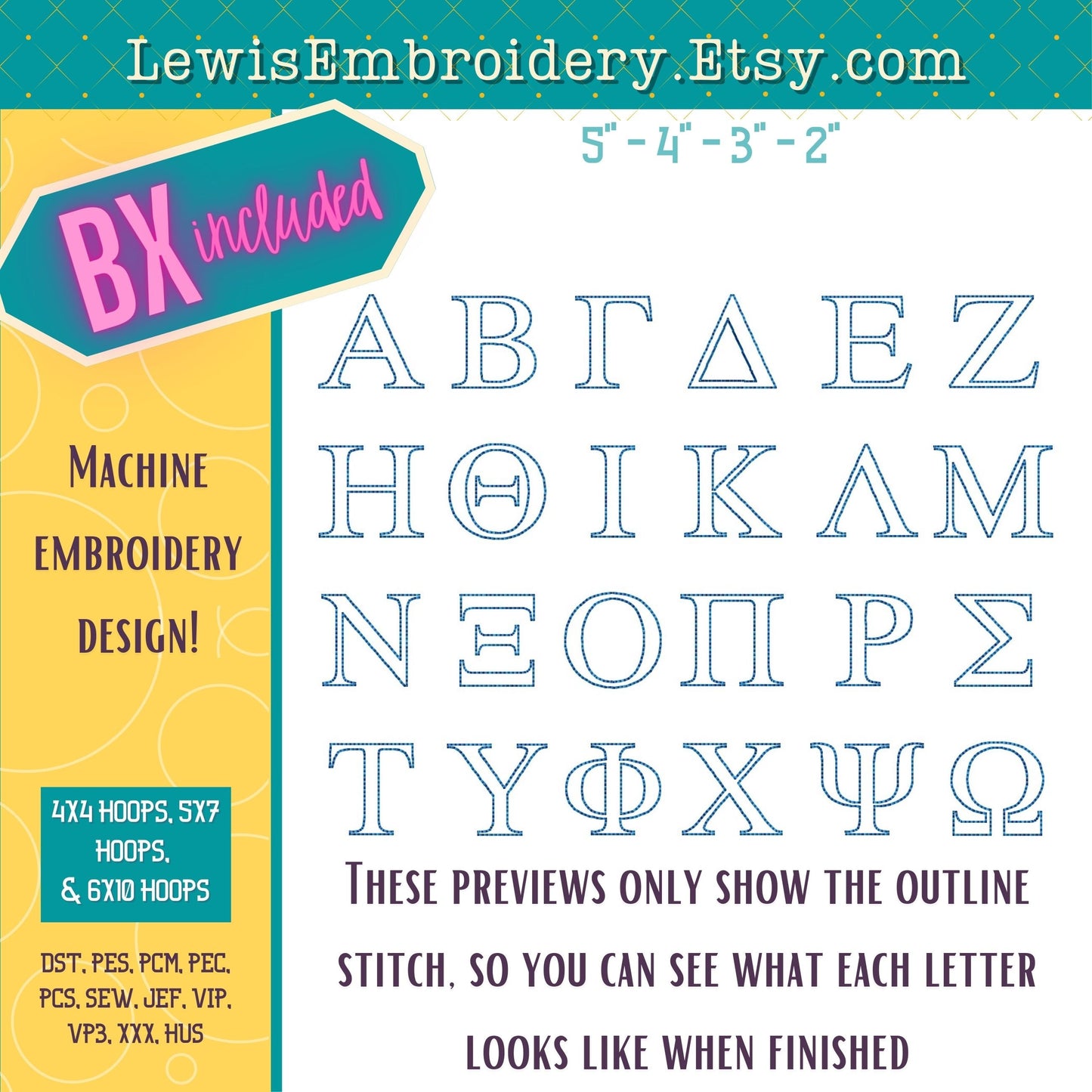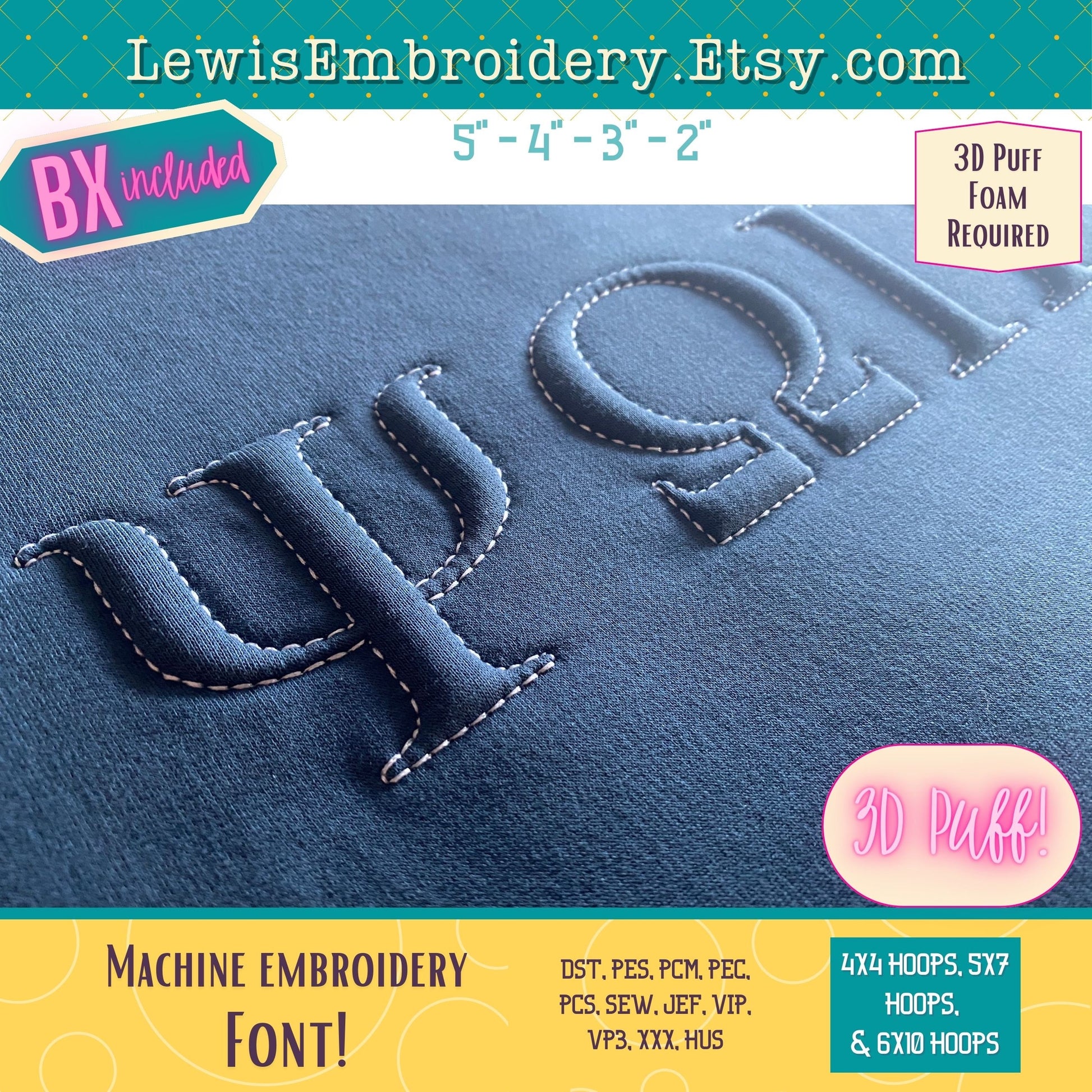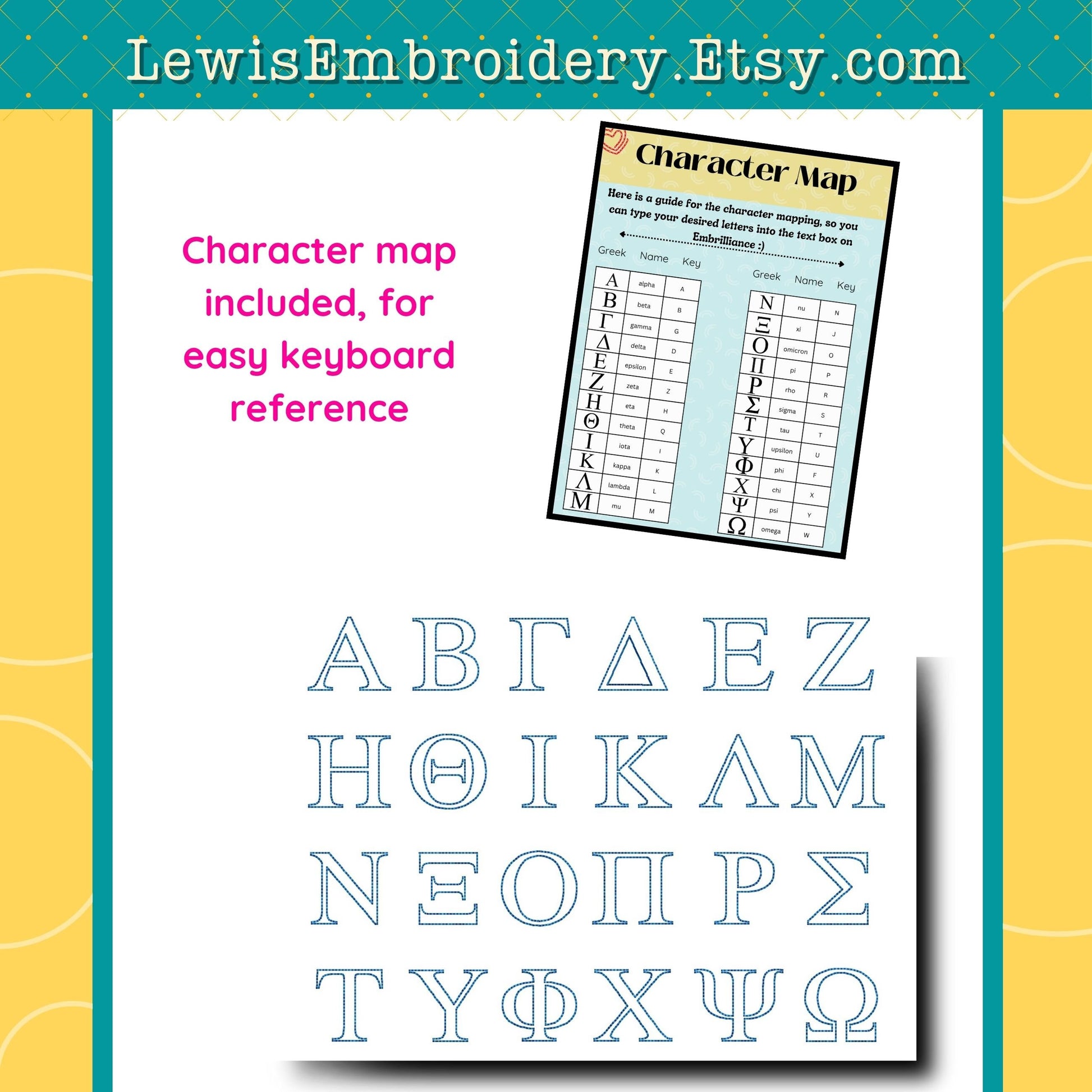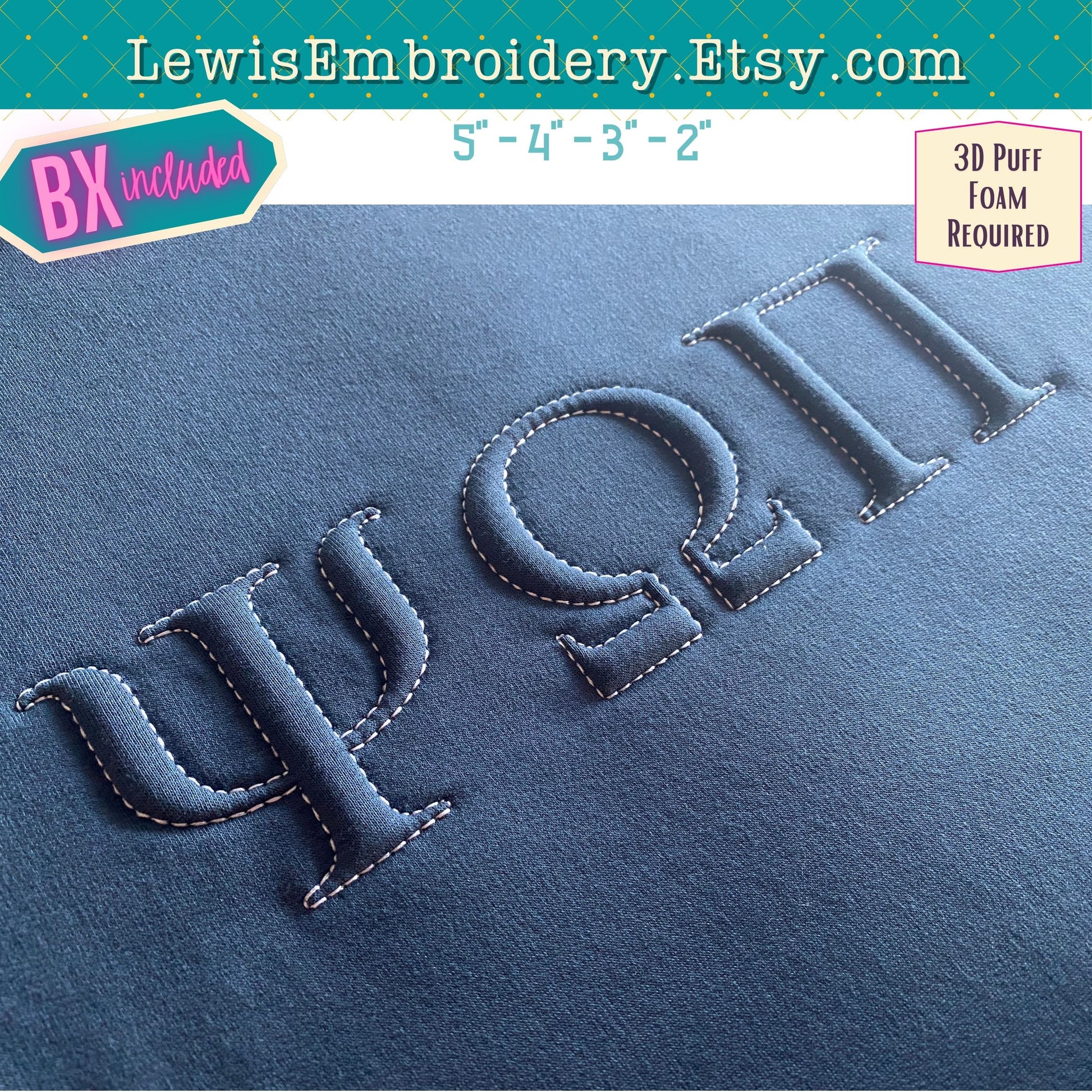
Greek Embossed 3D Puff, Machine Embroidery Font - With BX & Character Map - (PDF Tutorial Included)
Embossed 3D Puff Greek Embroidery Font - Puff Foam Greek Alphabet - Puffy Outline Font - Varisty Embroidery Font - BX Font - Greek Letters